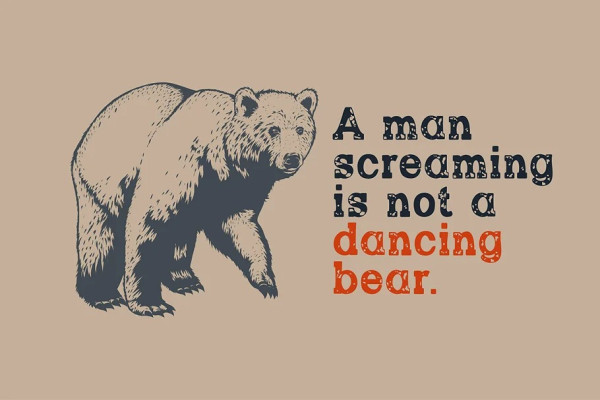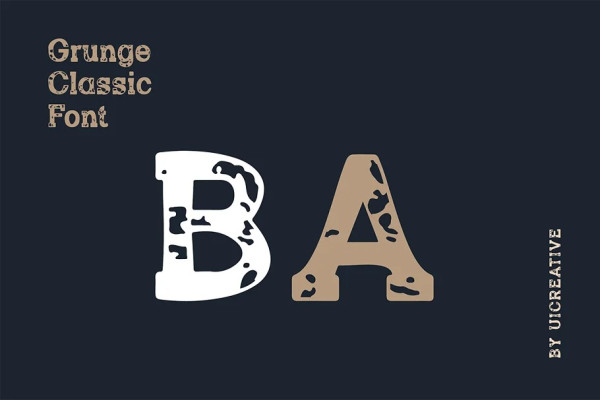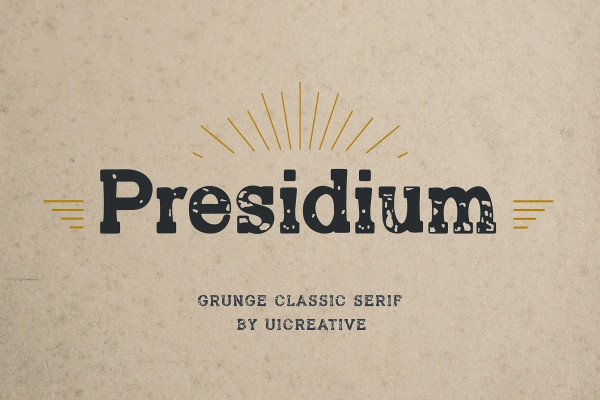
Presidium Font
Presidium Font – Classic Serif Font. Modern Serif font that feels beautiful classy, elegant, and modern. This font is ideally suited for a wide variety of projects, such as signature, stationery, logo, wedding, typography quotes, magazine or book covers, website headers, clothing, branding, packaging design, and more. Also, fashion-related branding or editorial design displays both masculine and feminine qualities.